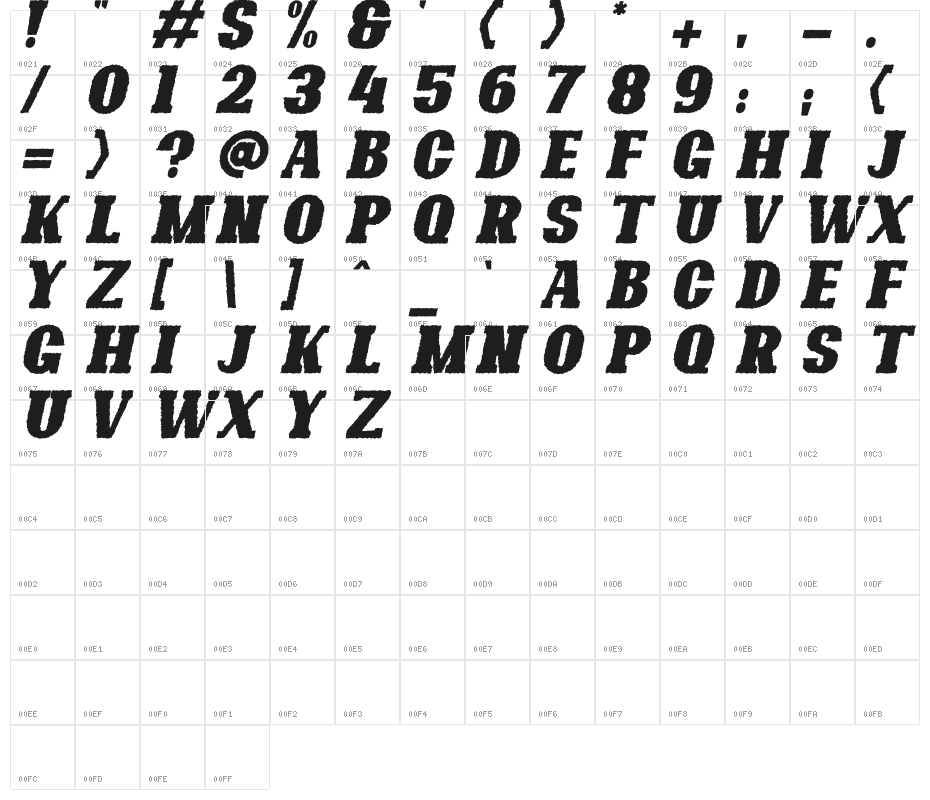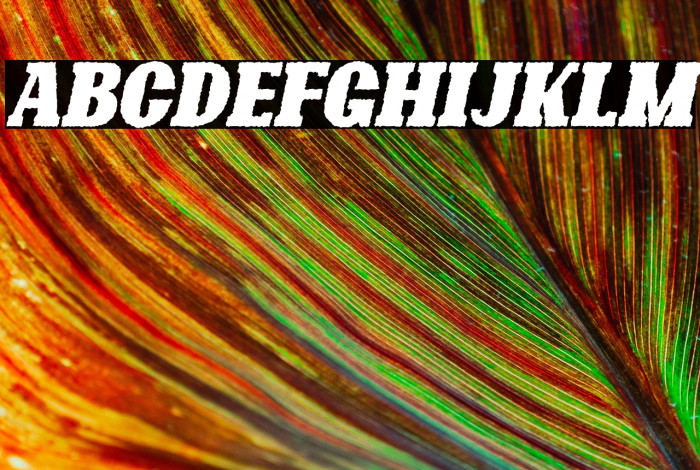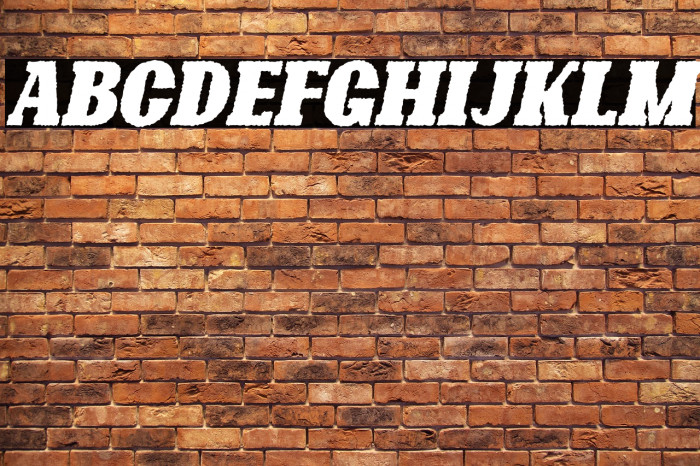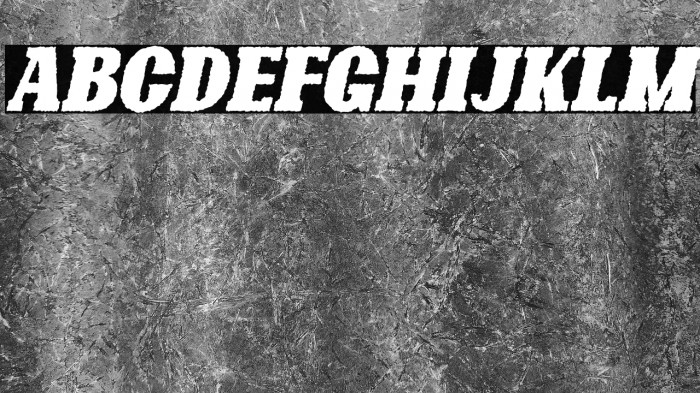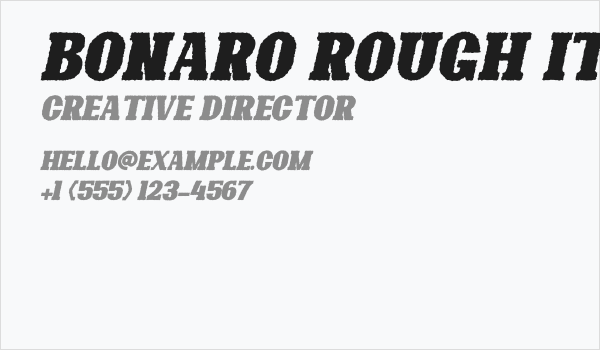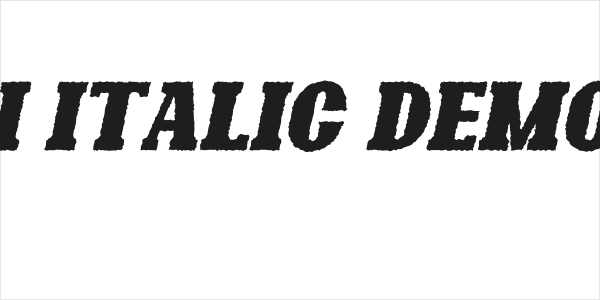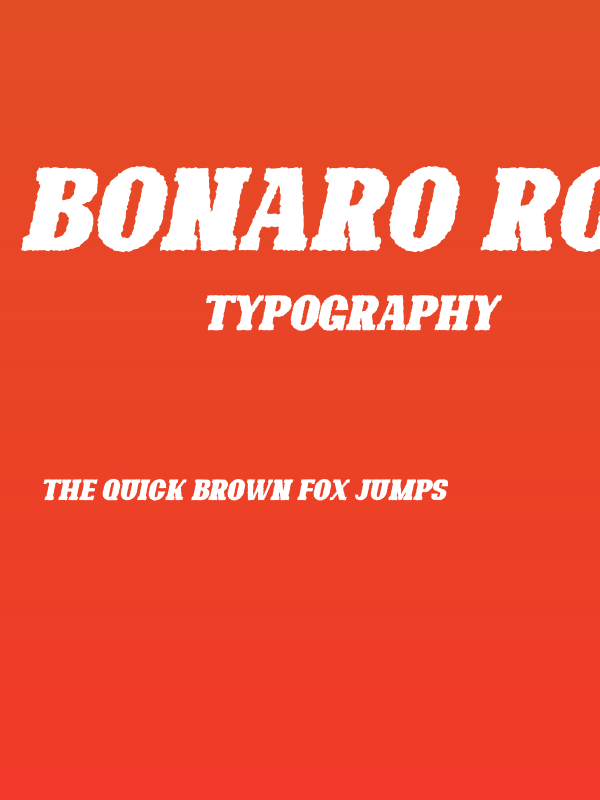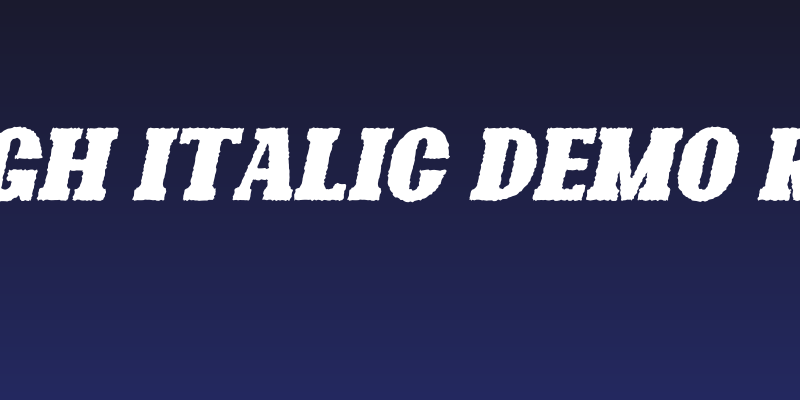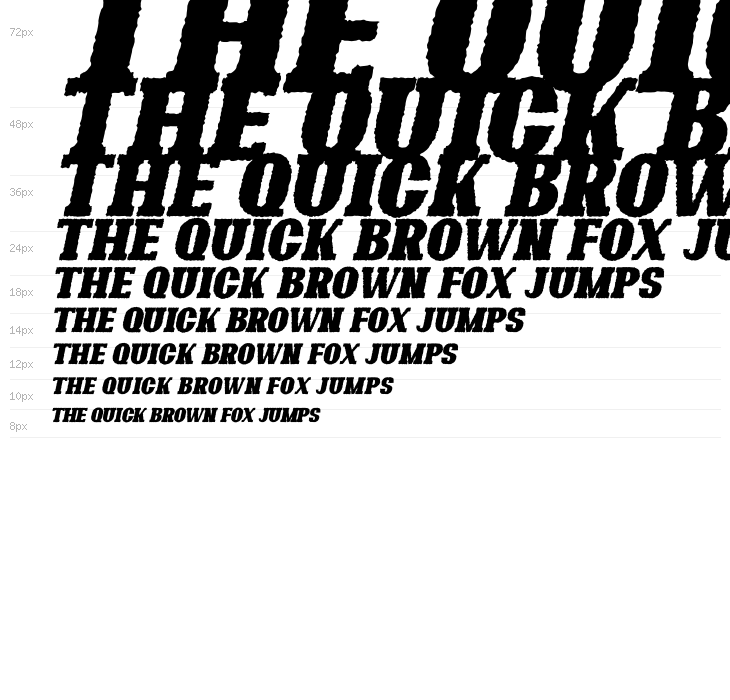
Bonaro Rough Italic Demo Rough Italic Font
Bonaro Rough Italic Demo Rough Italic Description
This font features a bold and rugged style with a distinct italic slant, giving it a dynamic and energetic appearance. The rough texture adds a handcrafted feel, making it stand out with a unique personality. The uppercase and lowercase letters maintain a consistent weight, providing a strong visual impact. Numbers and special characters are designed with the same rough, bold characteristics, ensuring uniformity across all elements. This font's boldness and texture make it ideal for projects that require a strong, eye-catching typeface.
| Proposed Projects | Ideal for posters, branding, packaging, and any design needing a bold, distinctive look. |